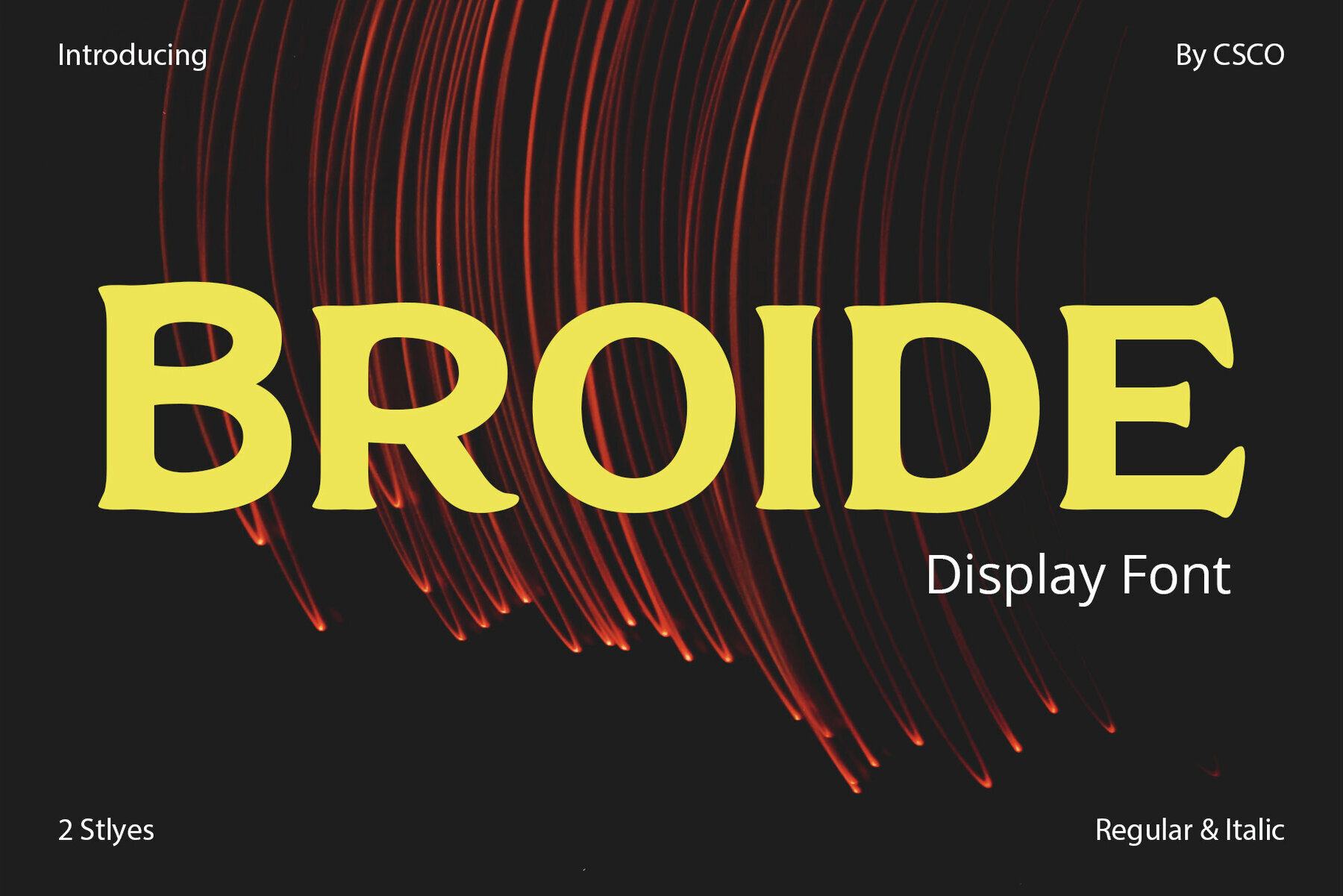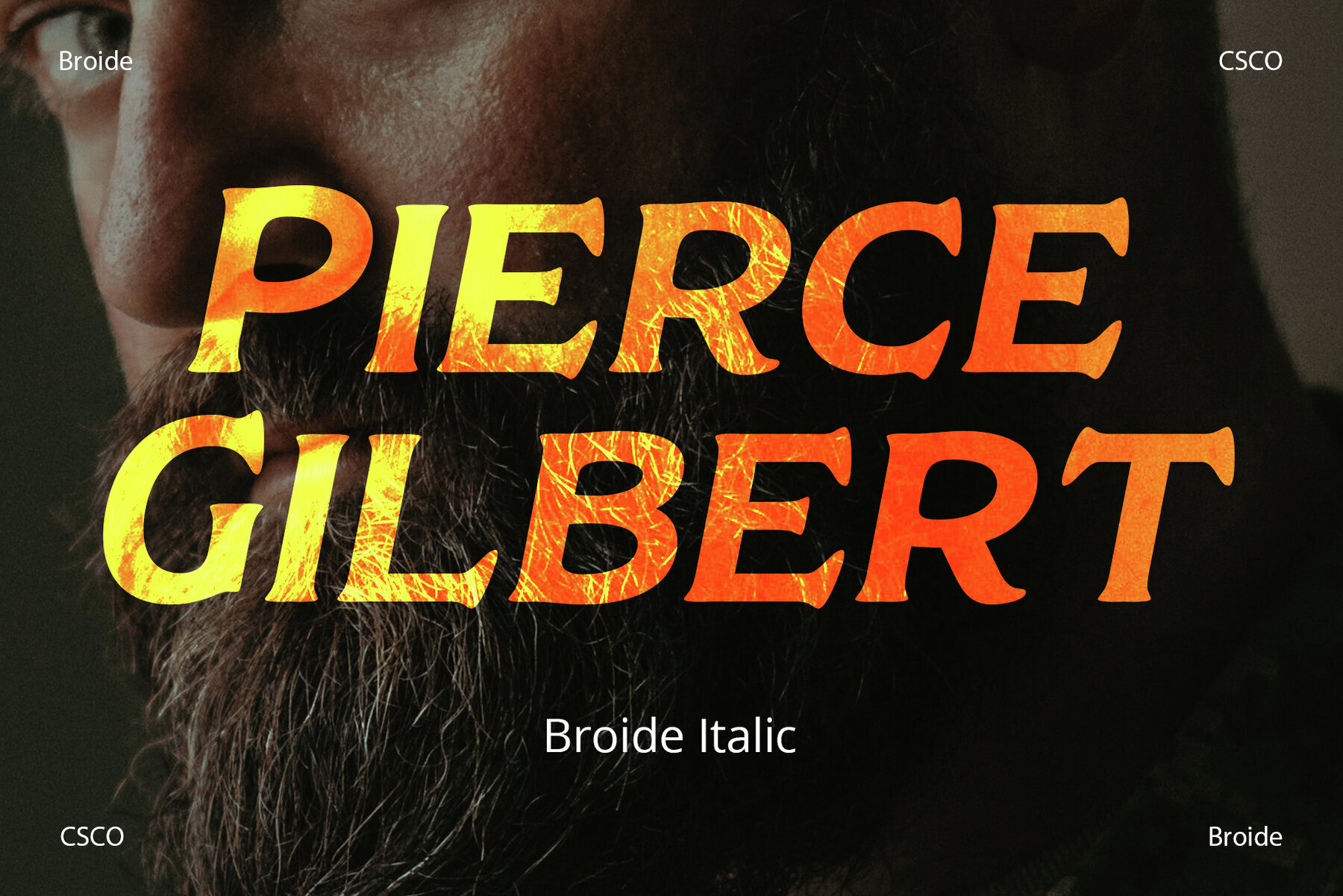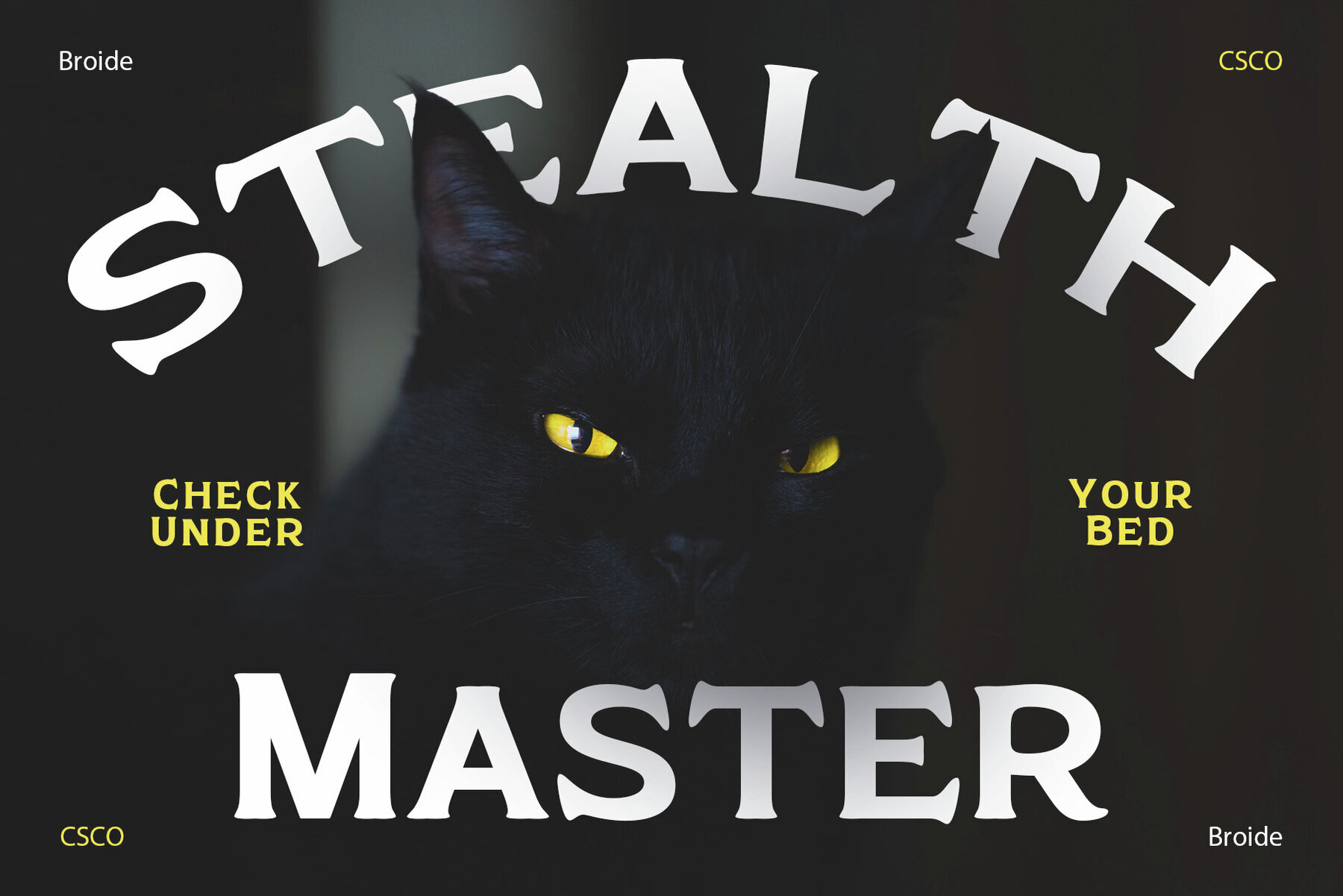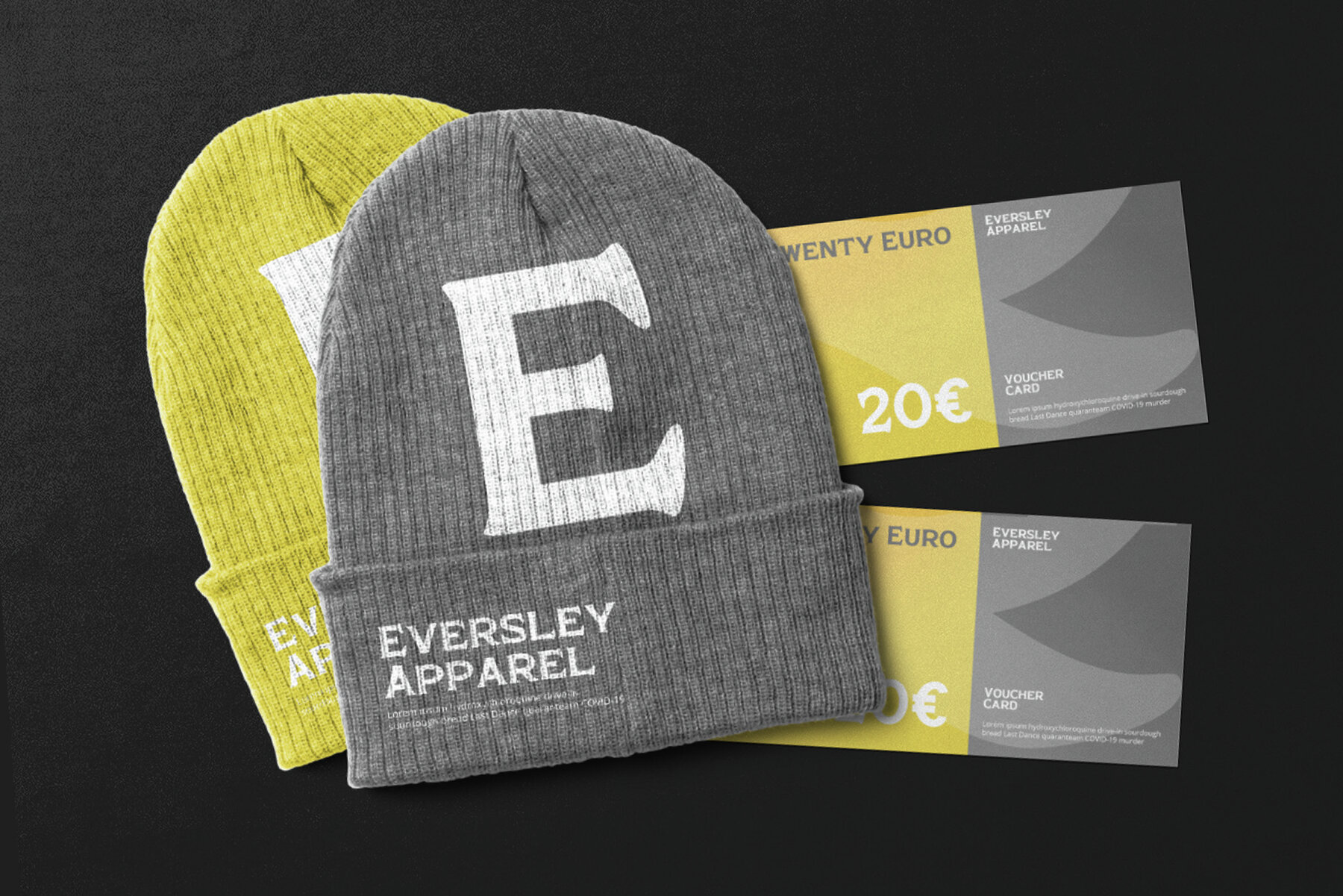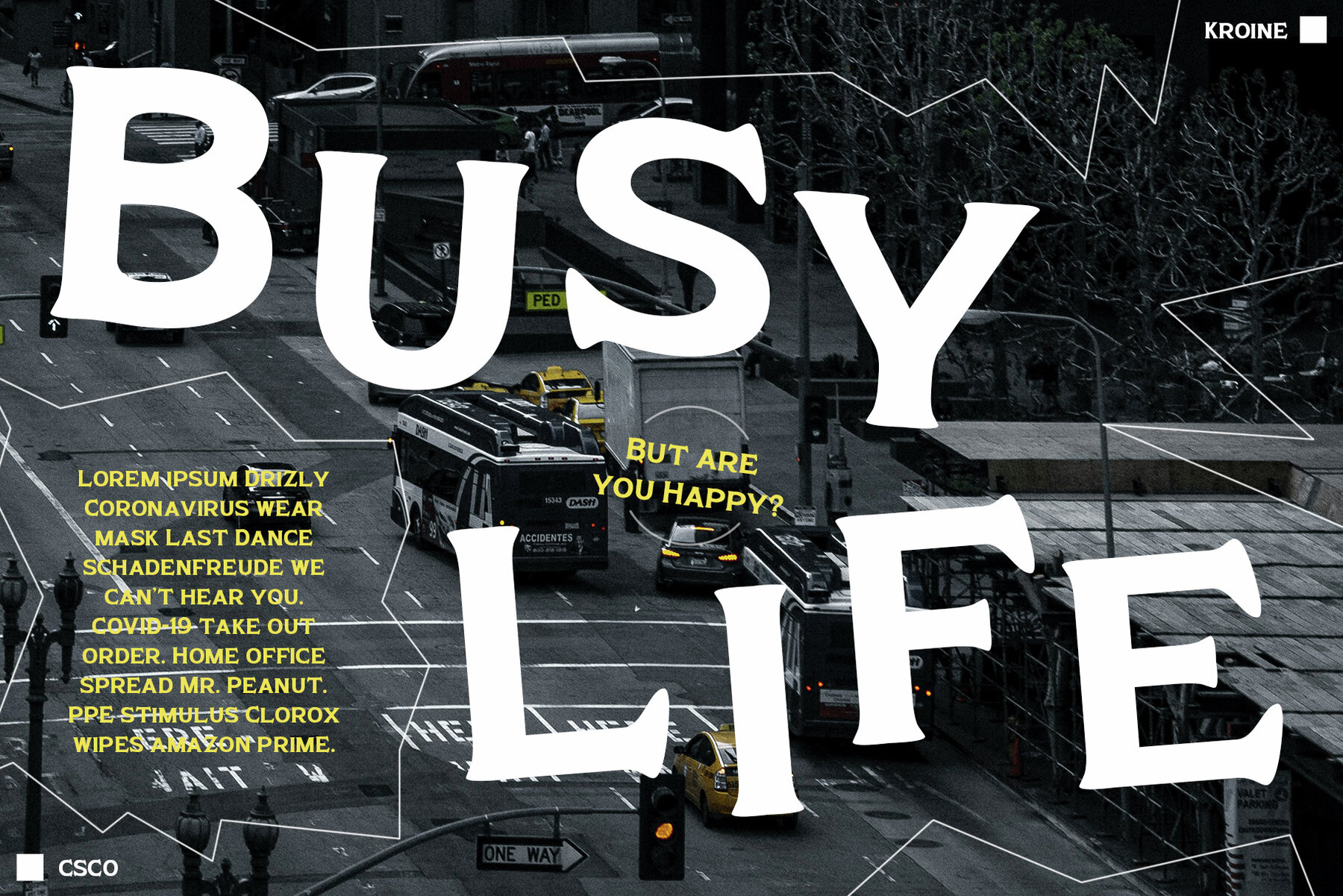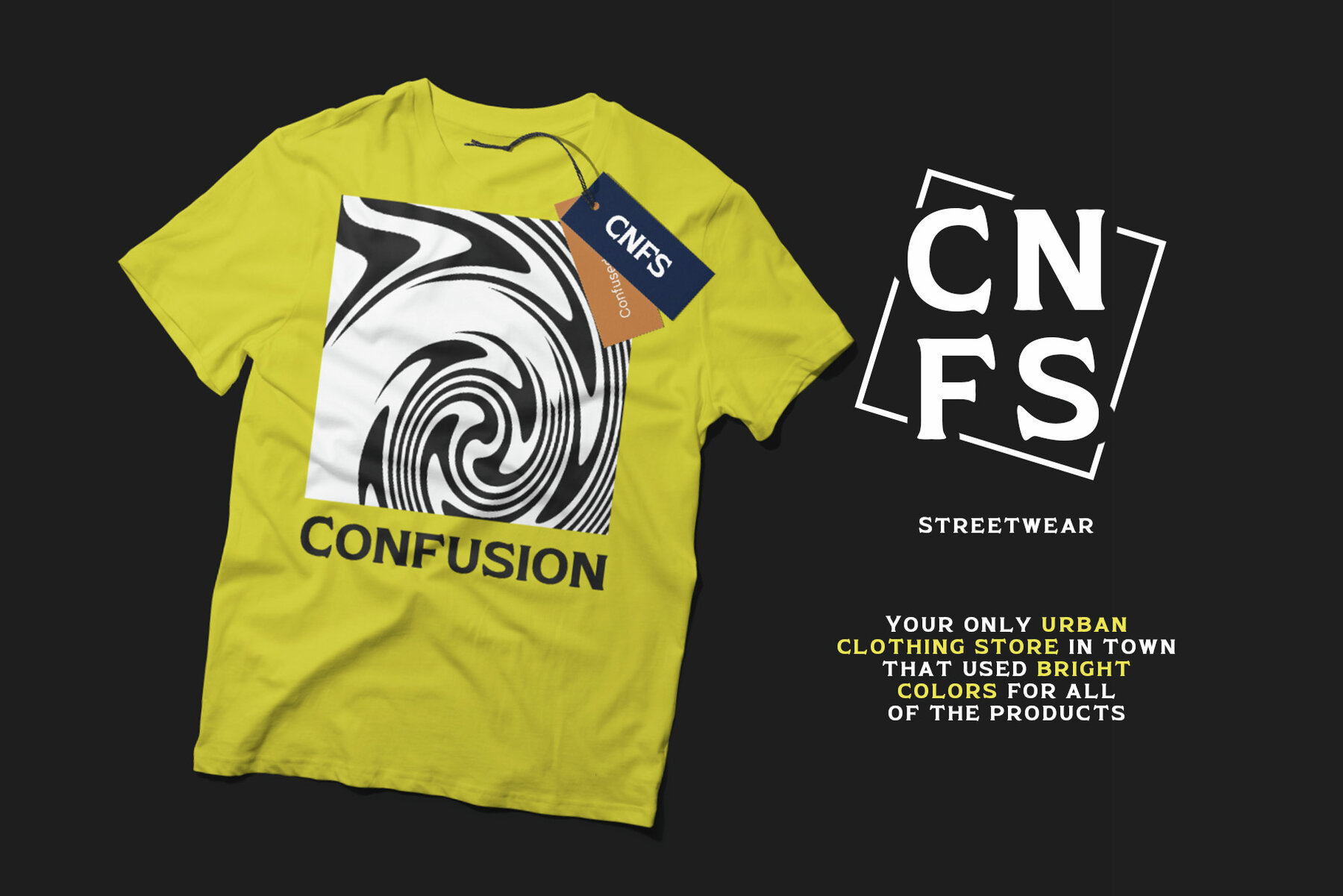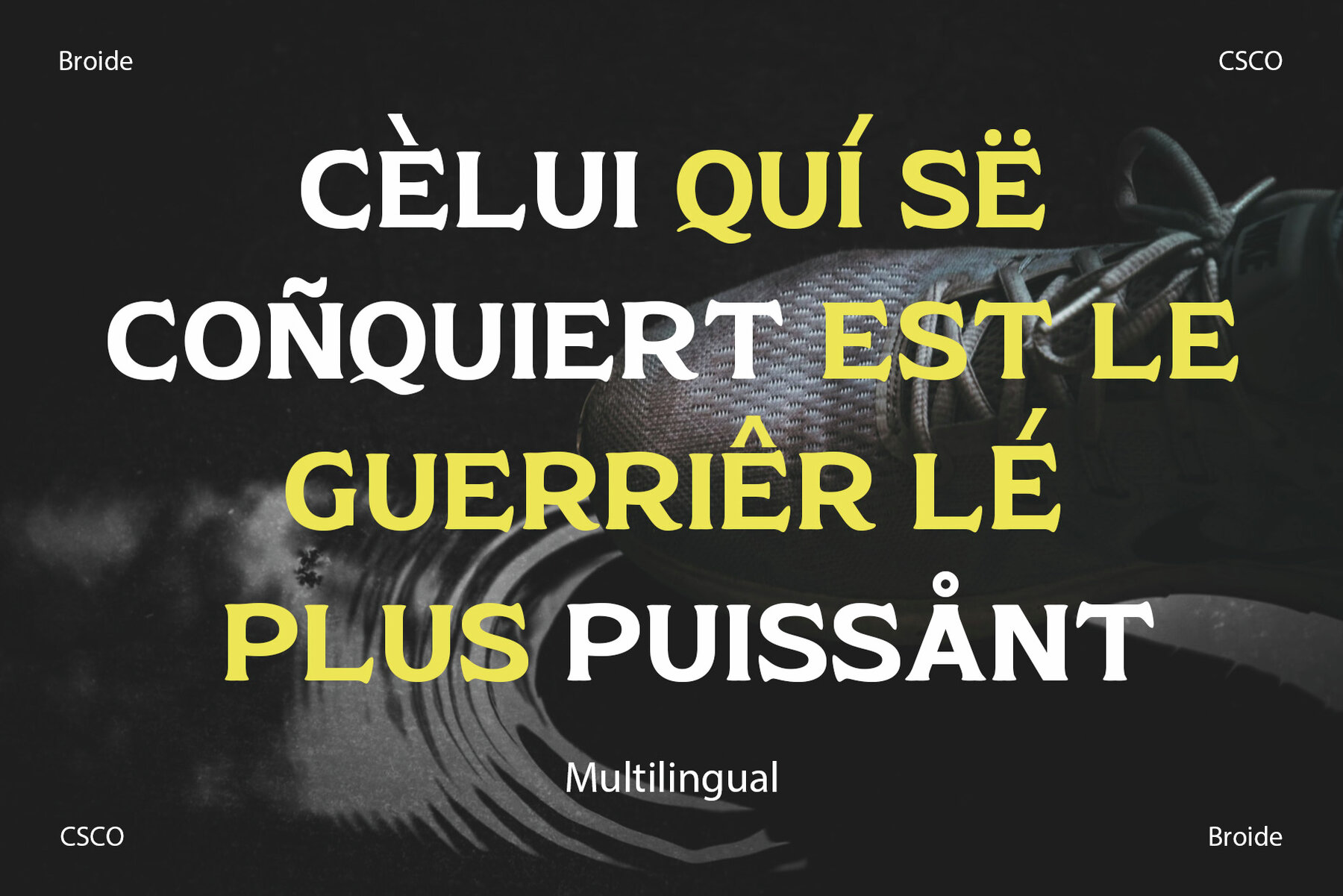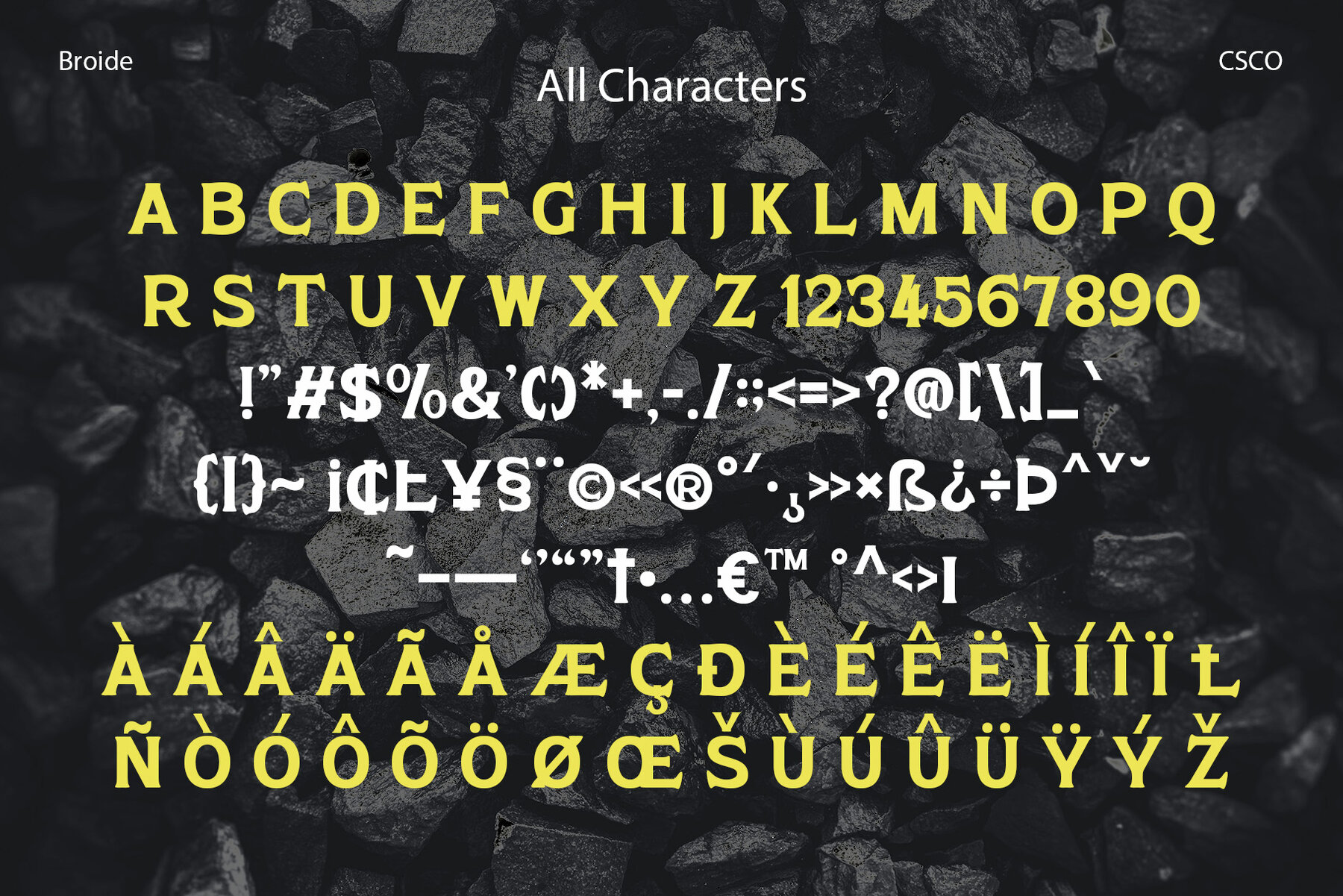
Broide Font
Broide, crafted by Craft Supply Co., where softness shapes strength, is a display serif font that combines boldness with a warm, friendly appearance. Its rounded serifs give it a gentle character, making it an ideal choice for projects where clarity and warmth are desired. Broide enhances your text with a welcoming vibe. The rounded serifs soften its bold presence, making it a strong yet approachable typeface. Perfect for invitations and branding, it offers a friendly feel that draws in the reader. Enjoyable reading is ensured with Broide's soft serifs and thick lines, which provide excellent legibility. Even at smaller sizes, Broide remains clear and eye-pleasing, making it a versatile choice for both print and digital formats.Broide: Softness Meets Serif
A Friendly Touch
Soft on the Eyes